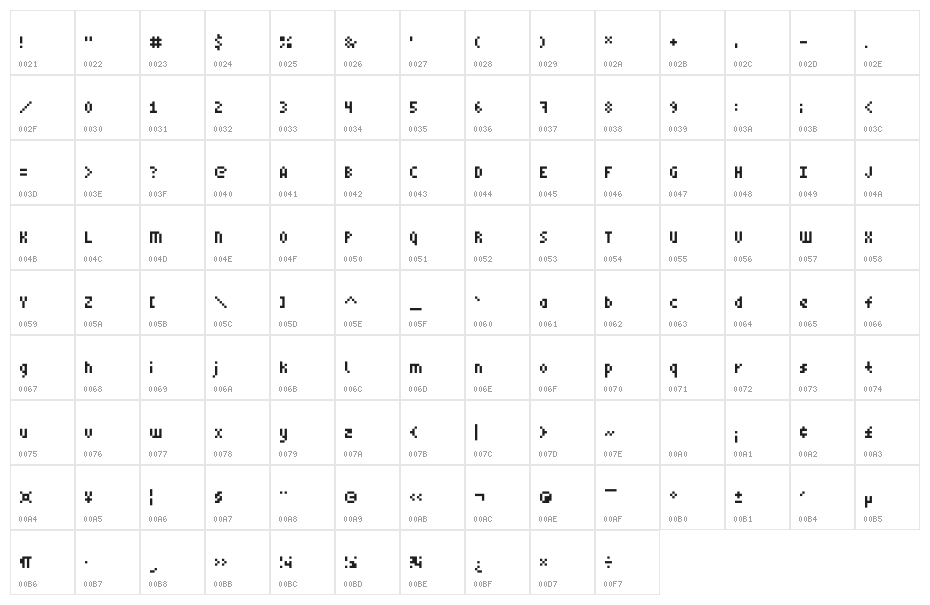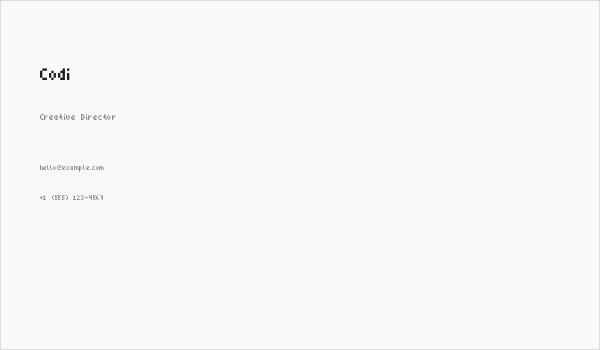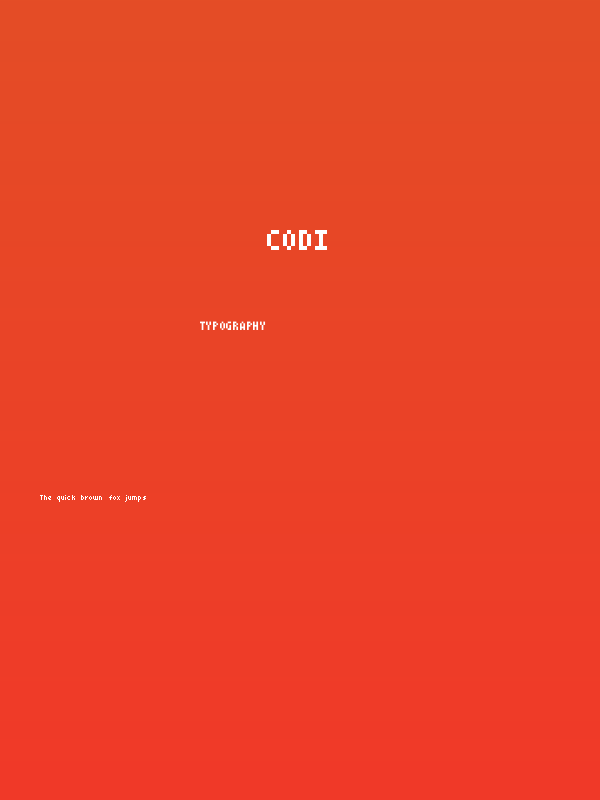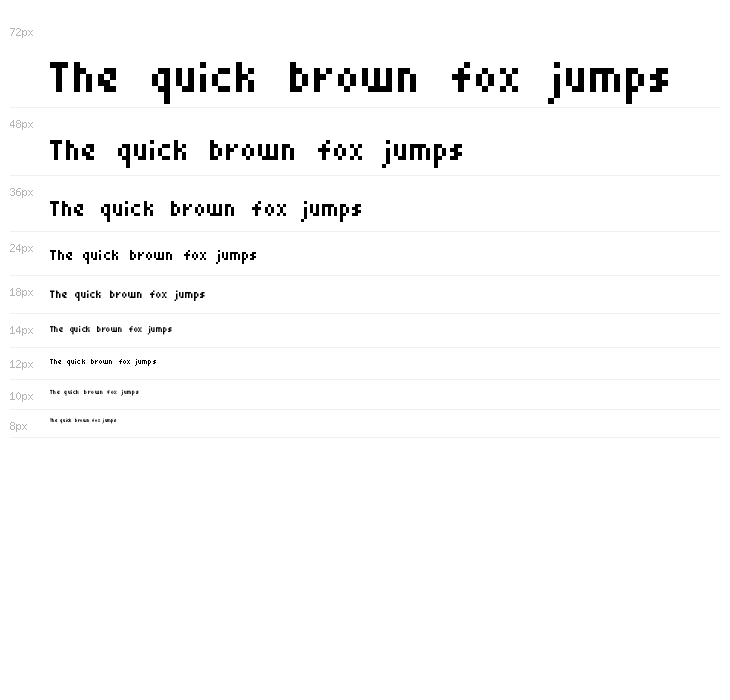
Codi Font
Codi Description
This font features a pixelated, blocky style reminiscent of early digital and video game typography. Each character is constructed with a uniform grid-like structure, giving it a distinctly retro and digital appearance. The uppercase and lowercase letters maintain a consistent height and width, contributing to a monospaced feel. The numerals and special characters follow the same design principles, ensuring uniformity across all glyphs. This font's simplicity and clarity make it highly legible, even at smaller sizes, while its unique style adds a nostalgic touch to any design.
| Overall Style | Retro, Digital |
| Use Case | Logos, Headlines, Digital Art |
| Proposed Projects | Ideal for retro video game designs, digital art projects, tech-themed posters, and nostalgic branding. |